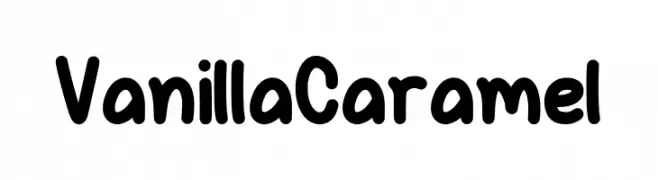
A playful, bold font with rounded, thick strokes and a whimsical style.
A playful, handwritten-style font with fluid, continuous strokes.
A playful, hand-drawn font with rounded edges and candy-themed glyphs.
A playful, handwritten font with smooth, flowing curves and a casual style.
A playful, casual handwritten font with smooth, rounded edges.
A playful, handwritten-style font with rounded, flowing characters.
A playful, bouncy font with smooth curves and a whimsical style.
A bold, playful handwritten font with rounded strokes and a lively style.